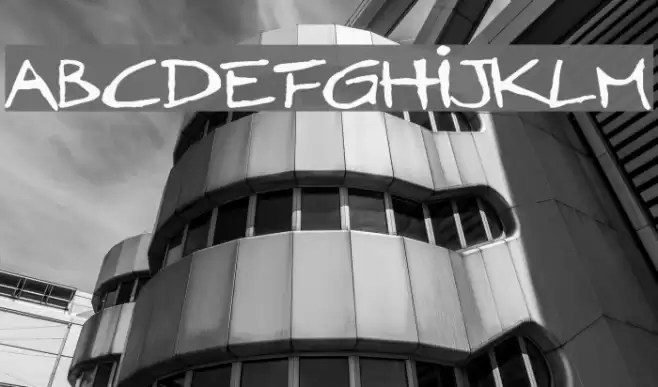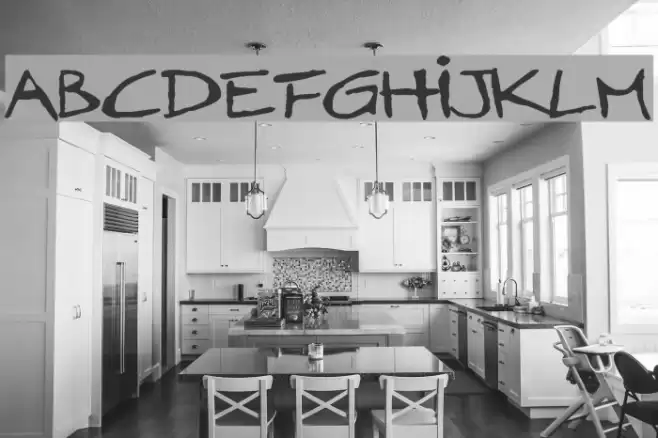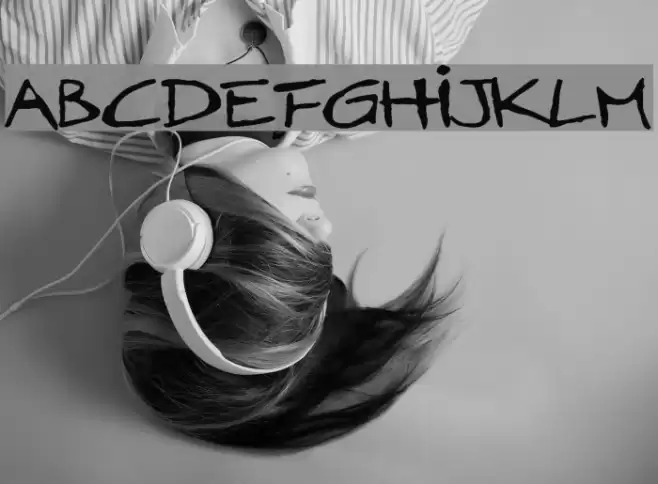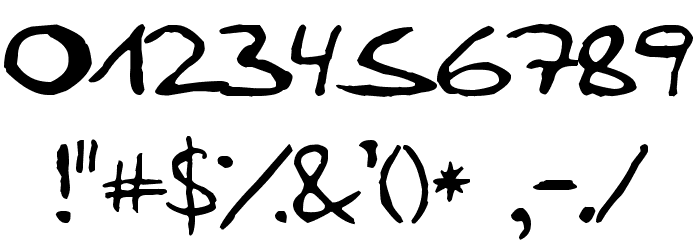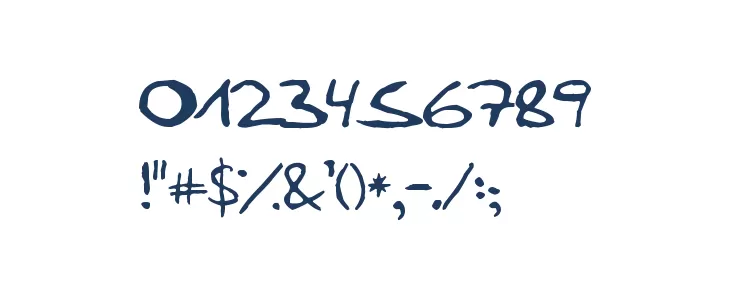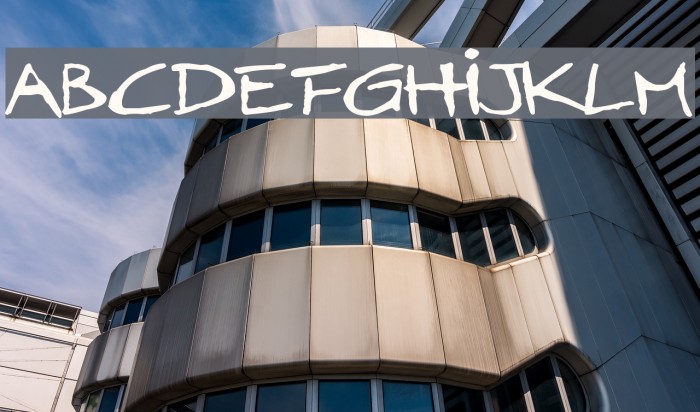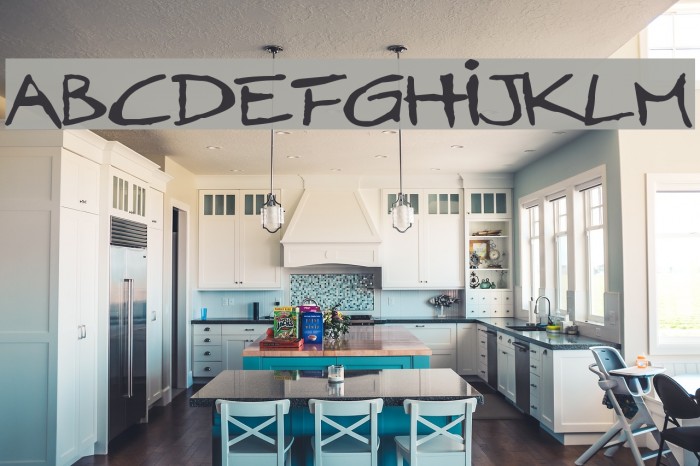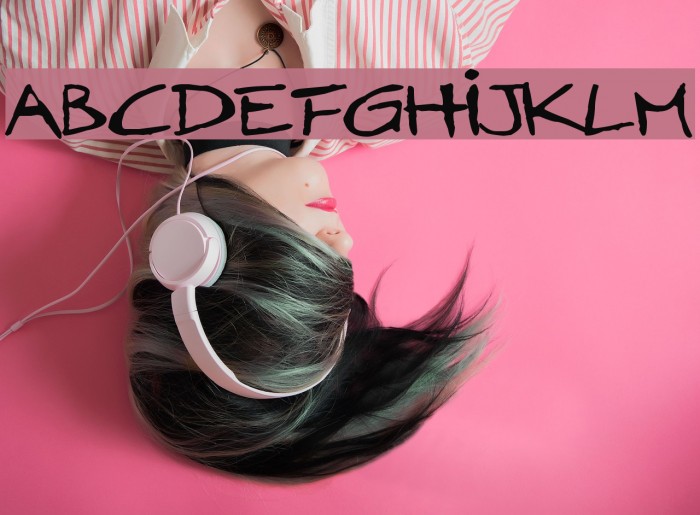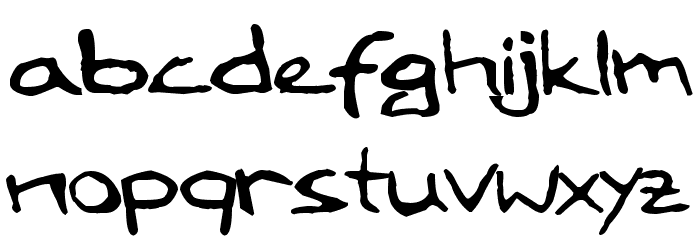
LoddyFont Font
LoddyFont Description
This font exhibits a playful and informal handwritten style, characterized by its irregular strokes and dynamic flow. The letters have a slightly uneven baseline, giving them a casual and spontaneous appearance. The uppercase and lowercase letters maintain a consistent style, with some variation in stroke thickness that adds to the font's lively character. The numbers and special characters are crafted with the same energetic flair, making them suitable for creative and informal projects. The overall design is approachable and friendly, ideal for conveying a sense of warmth and personality.
A playful, handwritten font with irregular strokes and a dynamic flow from Handwritten fonts.
- Proposed Projects: Ideal for greeting cards, children's books, casual branding, and creative social media graphics.
- Overall Style: Casual, Playful
- Use Case: Headlines, Informal Text, Creative Projects